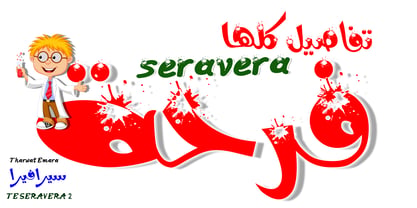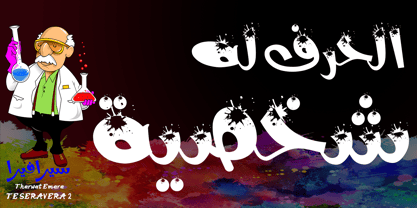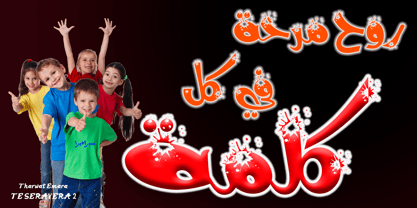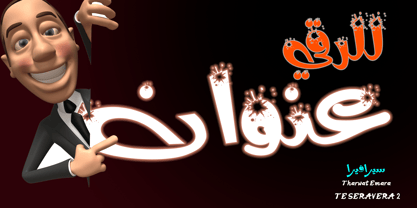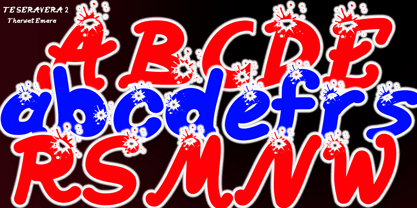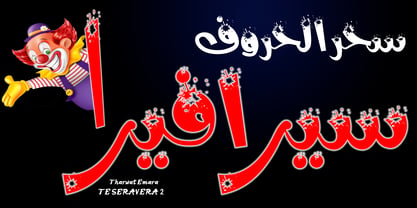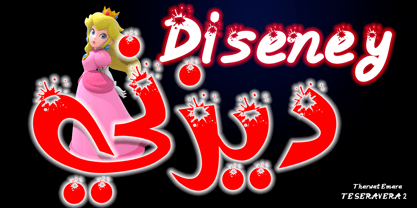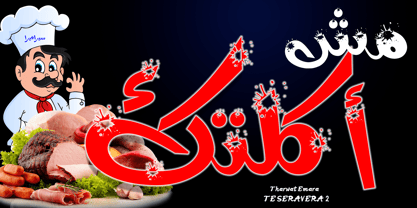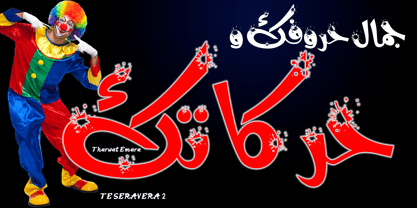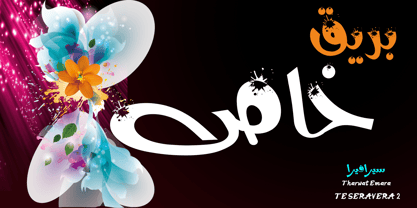
TE Seravera2
by Tharwat Emara
Seravera 2 is a professional Arabic display typeface that embodies the expressive power of Arabic letterforms through a contemporary visual approach that blends creativity with typographic precision. Carefully crafted, it offers a harmonious balance between strong letter structures, visual fluidity, and refined artistic details that give text a distinctive presence and memorable character.
The typeface features a rich collection of visual forms and dynamic compositions that bring energy and uniqueness to typography, creating a strong visual rhythm while maintaining clarity, readability, and aesthetic balance.
Designed for projects that require a bold and recognizable visual identity, Seravera 2 is an excellent choice for branding, logos, advertising campaigns, packaging, posters, headlines, and social media content. Its expressive personality enables designers to create eye-catching work that leaves a lasting impression across both digital and print media.
Seravera 2 represents a seamless fusion of the heritage of Arabic letterforms and contemporary design aesthetics, delivering a premium typographic experience that transforms words into powerful visual elements and enhances the value of creative and professional projects.
Key Features
• Contemporary Arabic design.
• Strong and distinctive visual character.
• Ideal for headlines and brand identities.
• Perfect for logos and advertising.
• Suitable for both print and digital media.
• High visual impact.
• Designed for creative and professional applications.